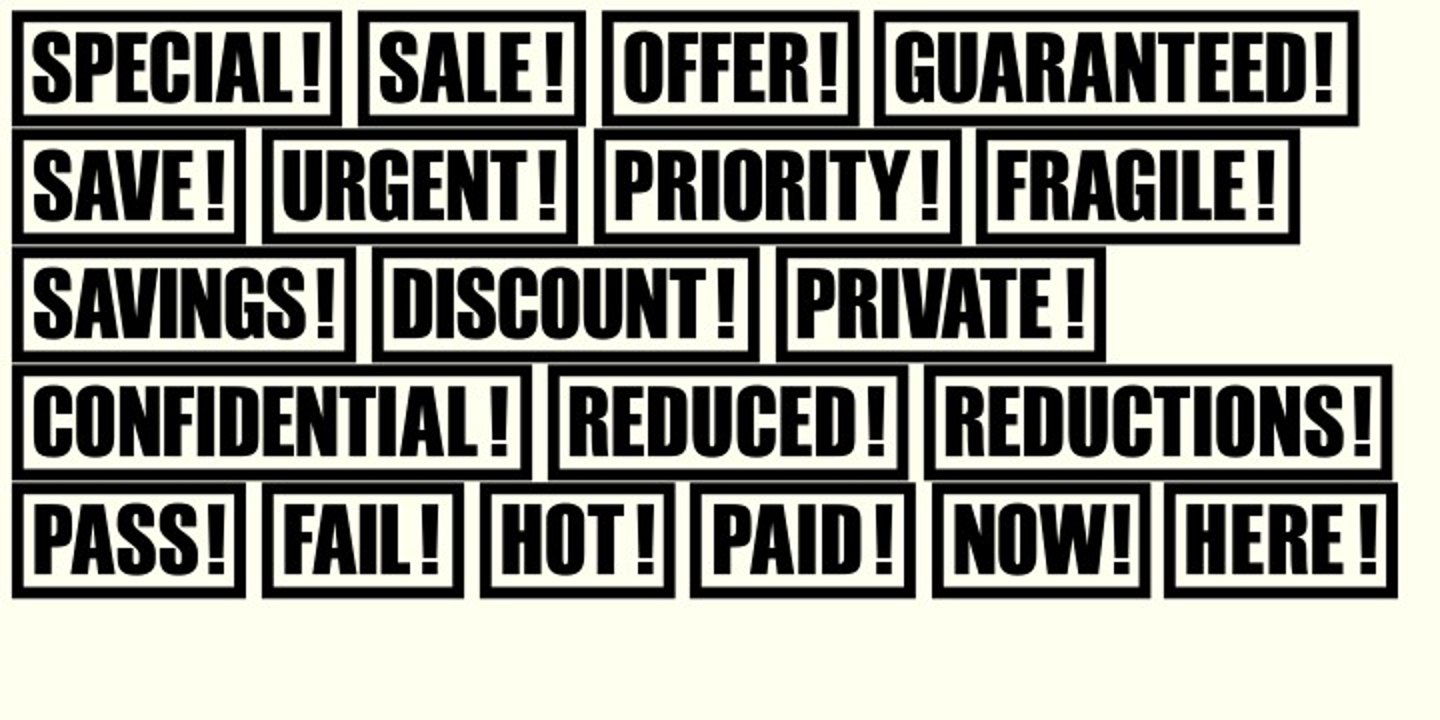
Shelflife is a display typeface with some extras under the lid. It features all the Standard Open-Type features you'd expect, like Class Kerning and Ligatures, plus some other useful additions and of course accented characters for most European languages and others. In essence it's an easy-to-read headline font with clean lines and a bit of character. There's an outline version that can be layered with the standard version to give the shadow effect seen in the accompanying graphics, simplicity itself to do. There's boxed headlines for SALE, SPECIAL, DISCOUNT (20 in total) all ready-made, plus some which can be tilted at an angle, and done automatically - just easily typed in; easy-to-do bullet numbers; a choice of square or rounded dots on j,ffi, and so on in Stylistic Alternatives; and shorter alternatives for U and N with accents. Details are included in the zip files. The zip file will contain both the OTF and TTF versions of the font. Install only one version, either the OTF or TTF, but not both - otherwise you will get all sorts of incompatibility issues and problems.